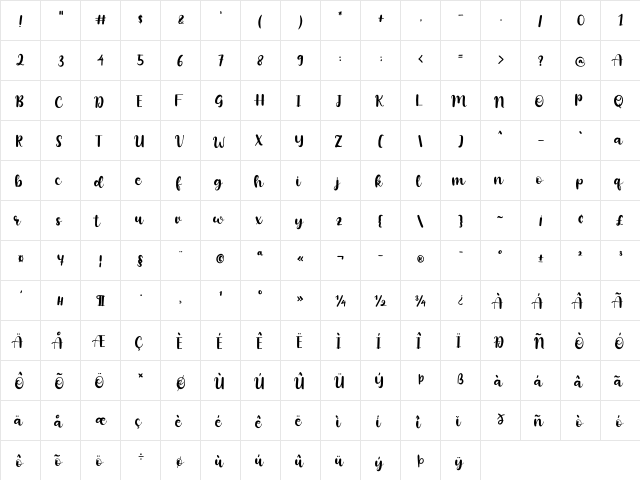
Mozzarella Standard
Design Context for Mozzarella Typeface
Mozzarella is a composed and adaptable typeface that performs quietly and consistently across a wide range of design contexts.